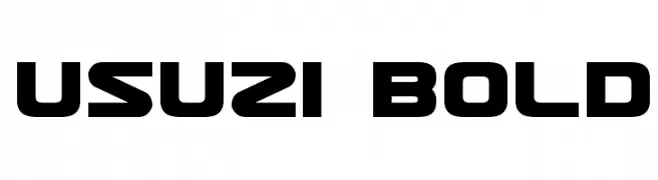
Usuzi Font
A bold, geometric font with a modern and slightly futuristic style.
A modern, italicized font with a sleek and dynamic appearance.
A modern, italicized font with expanded characters and medium contrast.
A sleek, semi-italic font with a modern, dynamic design.
A bold, modern, and condensed geometric font with a striking appearance.
A bold, modern font with geometric, wide characters and rounded edges.
A modern, condensed italic font with bold, angular characters.
A bold, geometric font with a halftone effect, ideal for modern and tech-themed designs.
A bold, futuristic font with a rightward slant and geometric design.
A bold, 3D outline font with a futuristic and dynamic style.
A bold, italicized font with a halftone effect, perfect for modern and dynamic designs.
A bold, italicized 3D outline font with a futuristic and geometric style.
A modern, striped font with a bold and dynamic appearance.
A modern, italic font with a gradient line effect, ideal for dynamic designs.
A bold, modern font with a futuristic and geometric design.
A modern, italic font with a gradient line effect, exuding speed and dynamism.
A bold, 3D italic font with outlined characters and a futuristic style.
A bold, geometric 3D font with a futuristic and modern style.
A sleek, semi-italic font with bold, condensed characters and a modern, dynamic style.
A bold, italicized font with a halftone effect, exuding a modern and dynamic style.
A bold, futuristic font with horizontal stripe gradients creating a dynamic, digital look.
A modern, expanded italic font with geometric shapes and medium contrast.